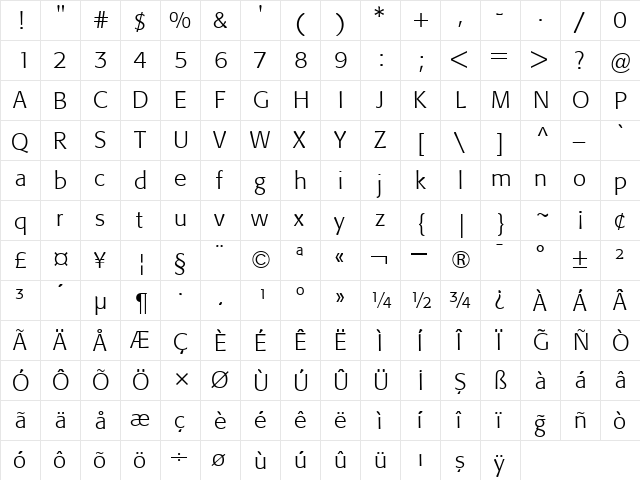
FormataLight Regular Font Preview
FormataLight Regular
FormataLight Regular Font Details
Design Context for FormataLight Typeface
FormataLight takes a measured approach to typography — its balanced proportions and neutral character make it a reliable workhorse for both digital and print work. The delicate stroke weight brings airiness and refinement to layouts.